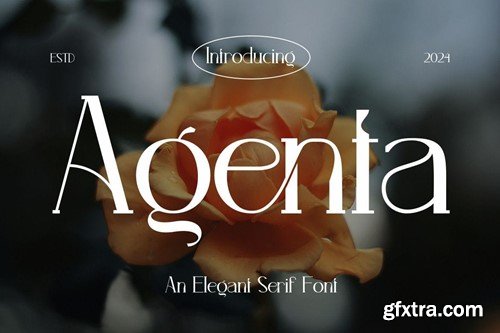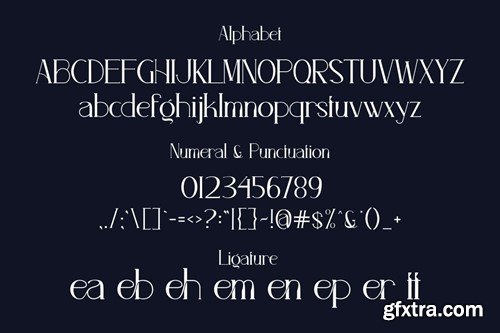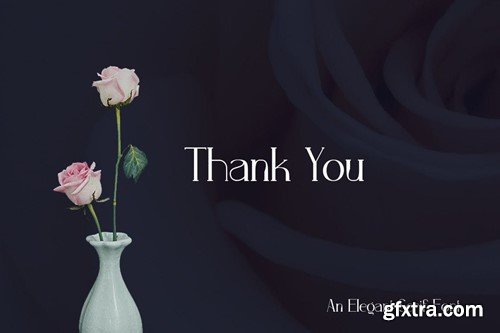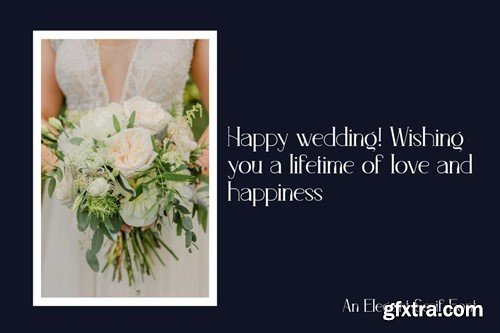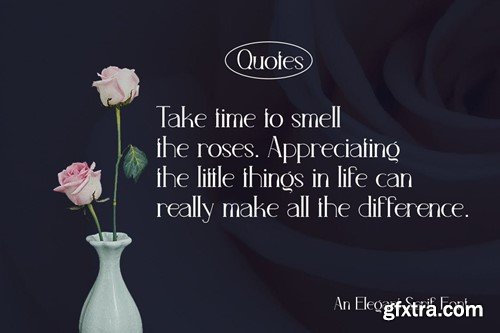
Agenta - Elegant Serif Font F59XD2R
Agenta - Elegant Serif Font
Proudly presenting our new product Agenta - Elegant Serif Font is a modern and authentic font. Perfect for professional and product branding needs, this font is suitable for any branding project such as quotes, logos, blog headers, posters, ribbons, letters, invitations, stationery, etc... Designed to be versatile and flexible that can be used on a variety of projects and media. extraordinary in a variety of contexts.